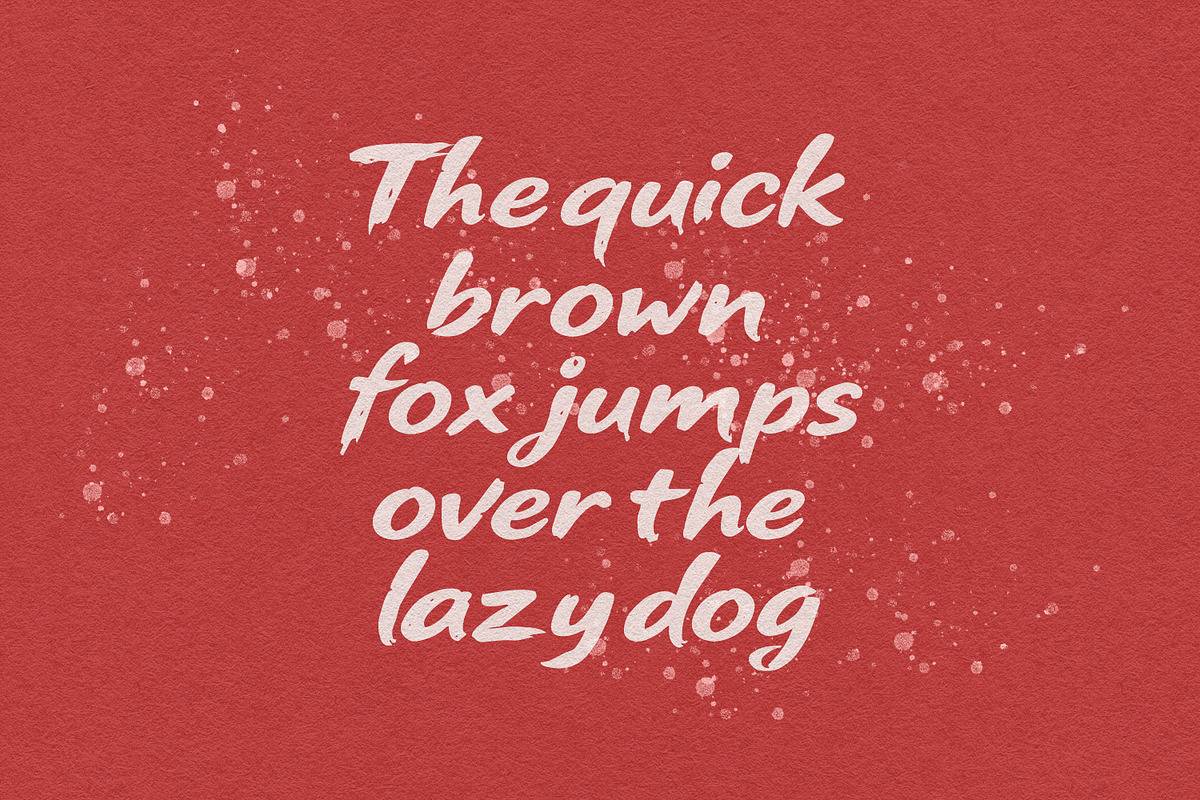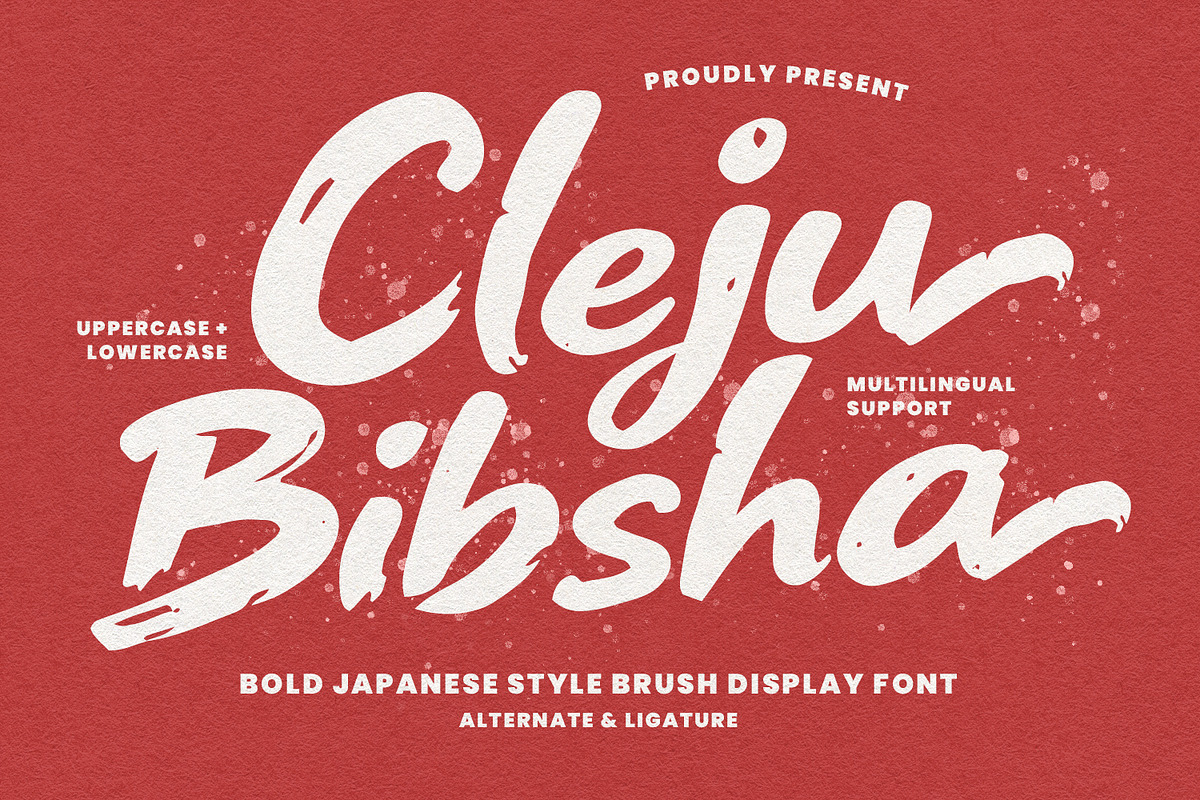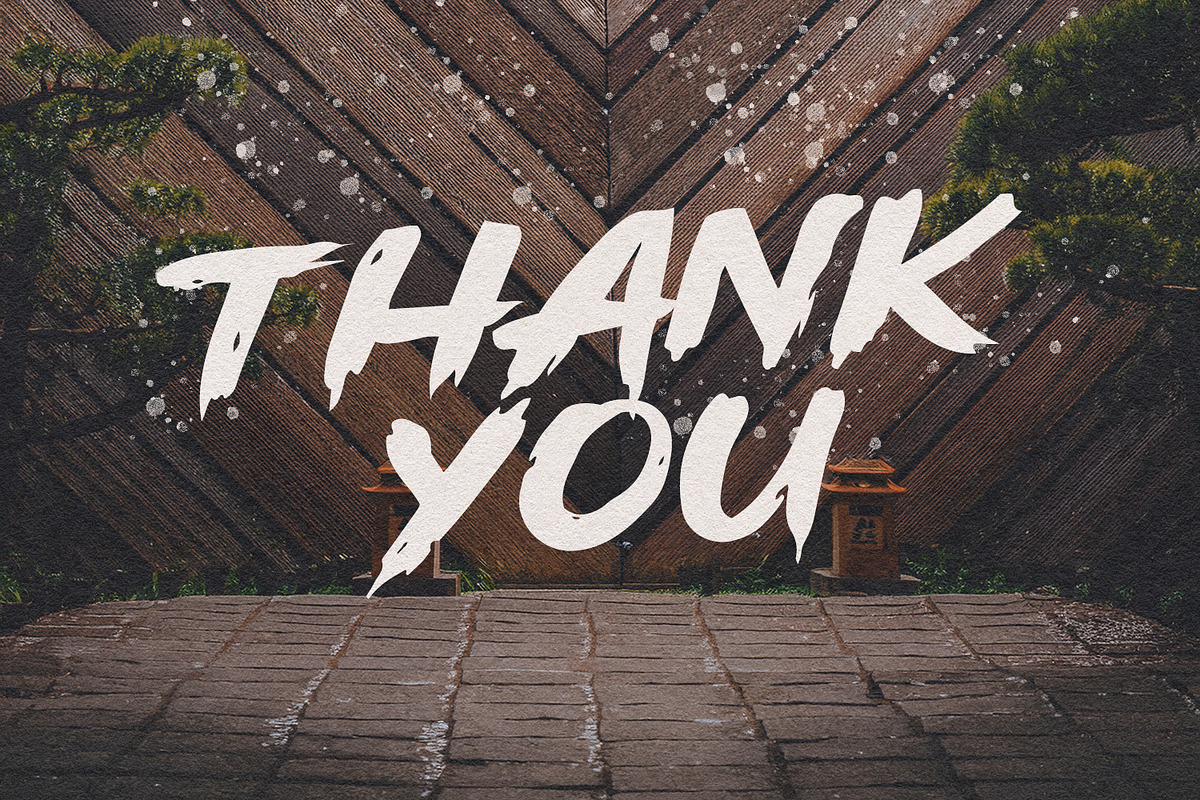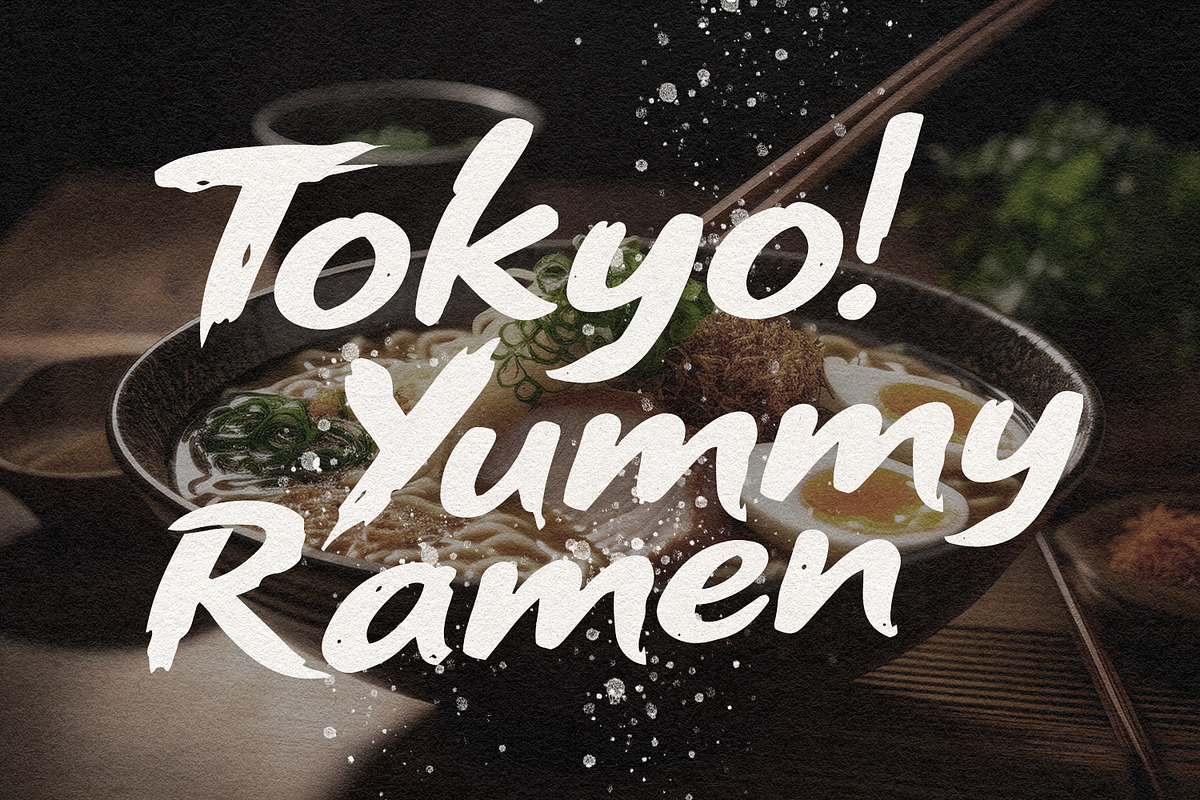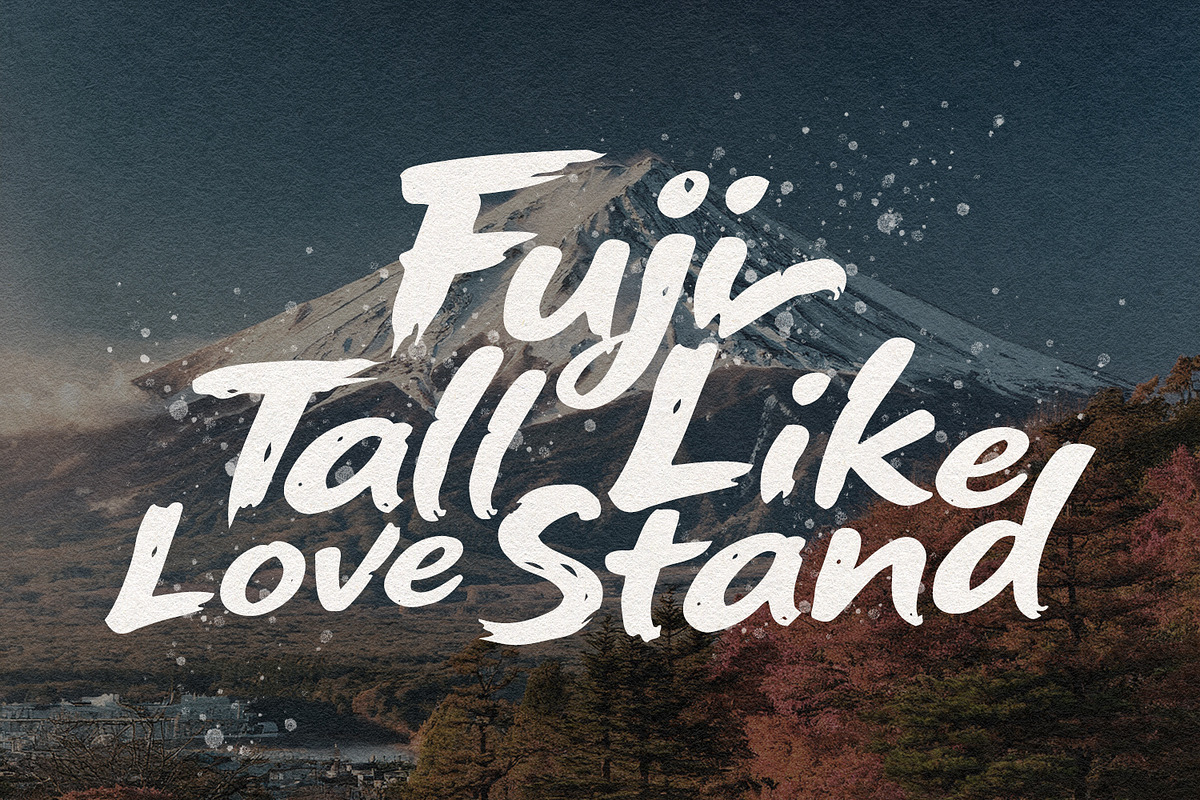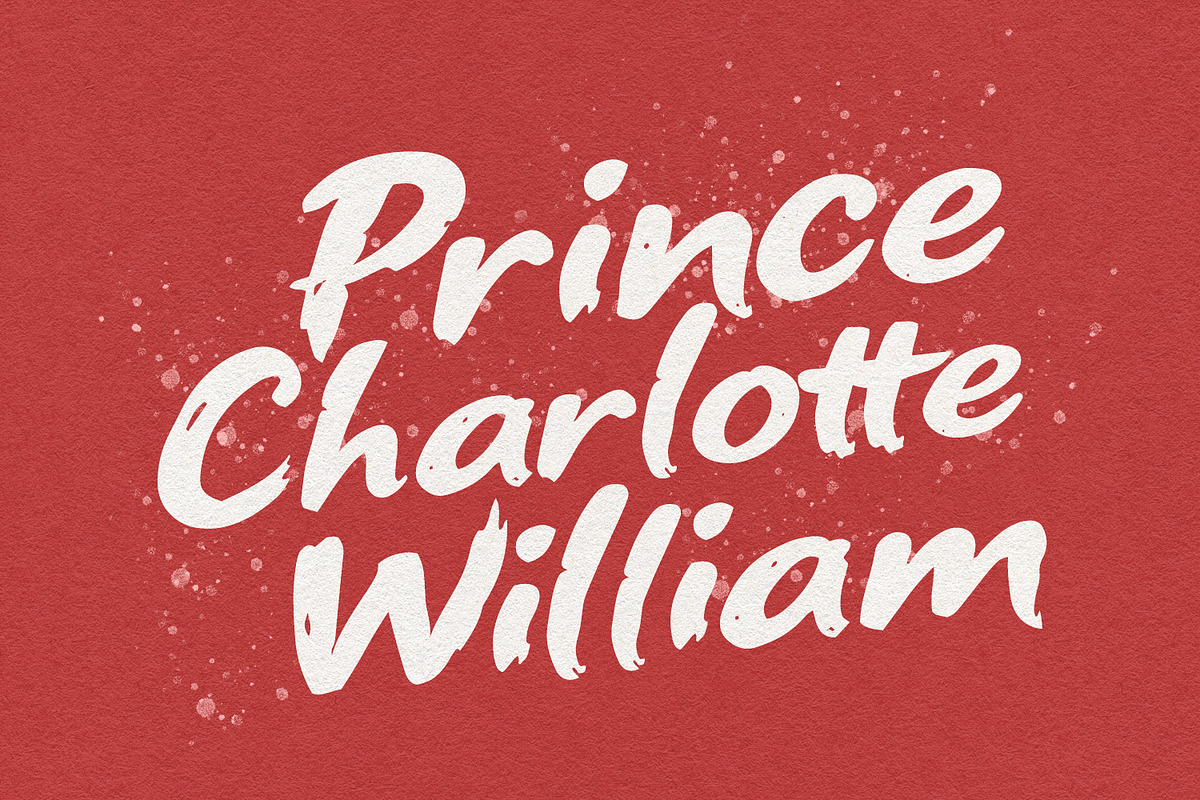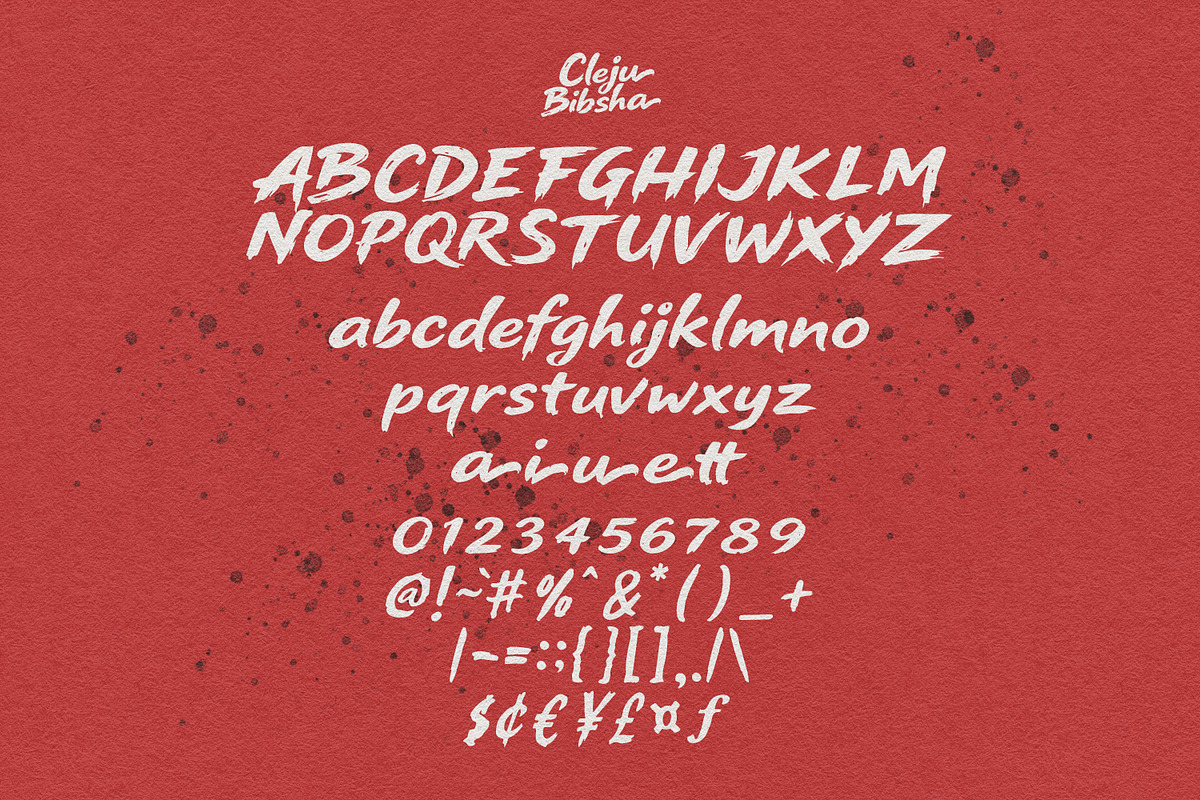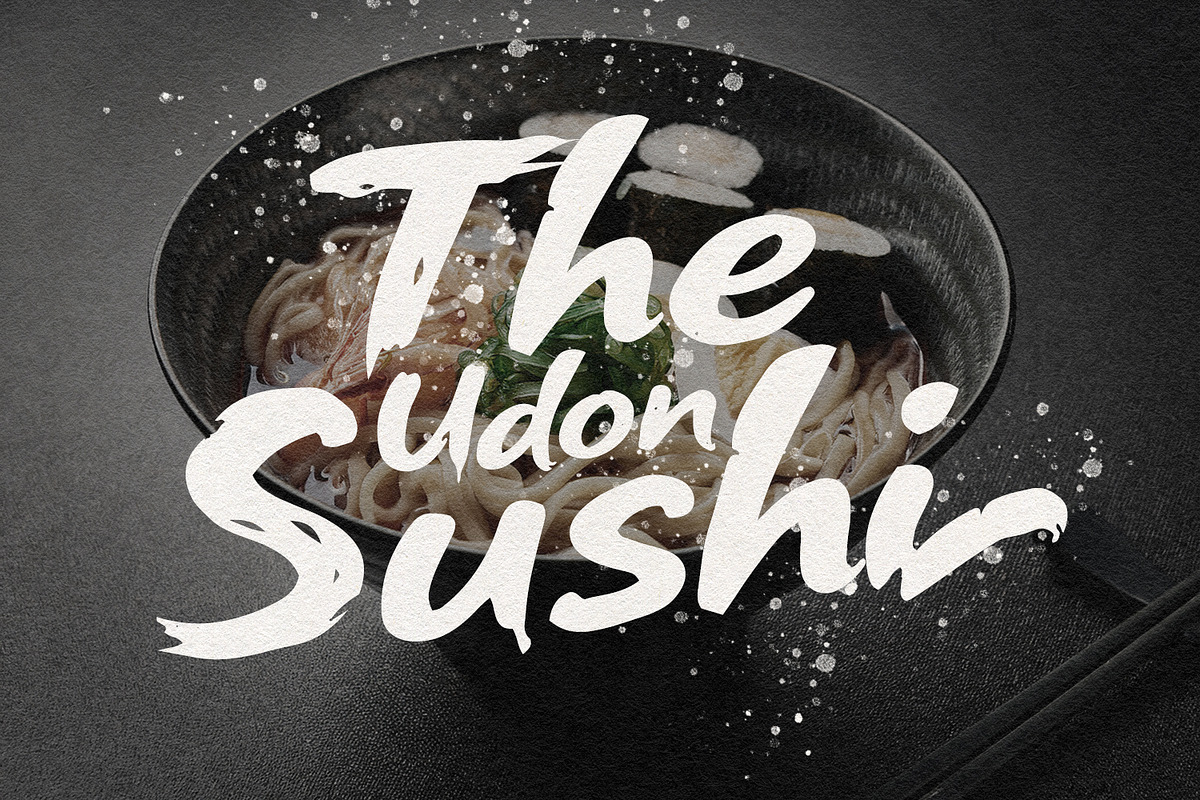
Cleju Bibsha Japanese Style Brush
Cleju Bibsha is a powerful and expressive display font inspired by the traditional artistry of Japanese calligraphy. Featuring bold, energetic brushstrokes and a natural dry-ink texture, this font captures the raw essence of hand-painted characters. It is designed to bring a sense of "Bushido" spirit and modern street-style aesthetics to your creative projects.
Equipped with uppercase, lowercase, alternates, and ligatures, it offers great versatility for designers. Whether you are working on a high-impact restaurant logo (like Ramen or Sushi shops), martial arts branding, action movie posters, apparel design, or cultural event flyers, Cleju Bibsha provides a striking visual presence that is both authentic and contemporary.
- Ligature and Alternates